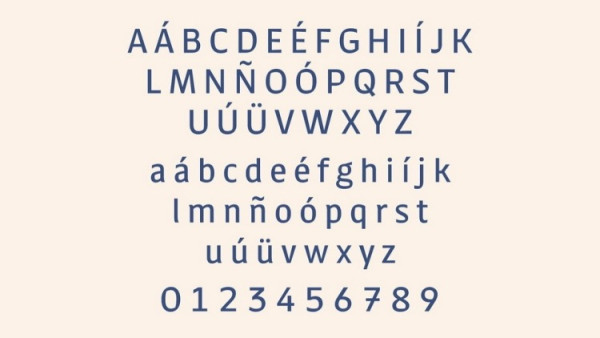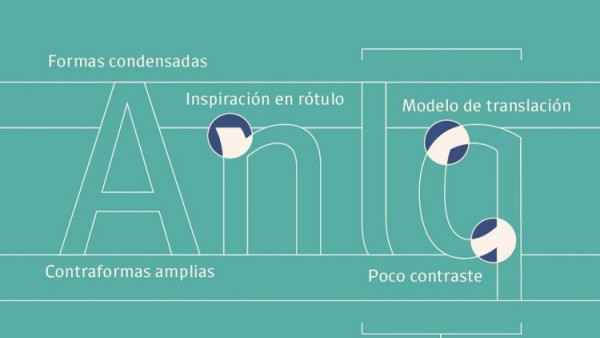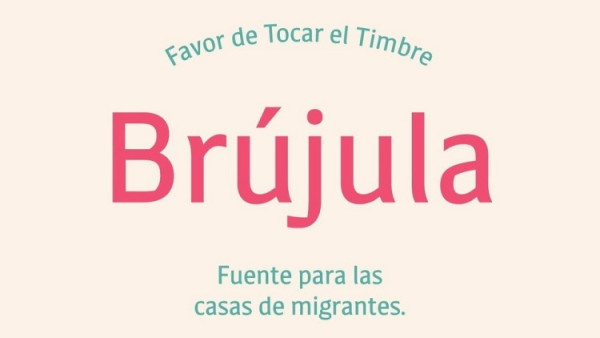
Brújula Font
Brújula Font is a sans serif typeface designed to guide migrants who are going through a vulnerable and dangerous situation to reach these points of support in order to transit in the safest way possible.